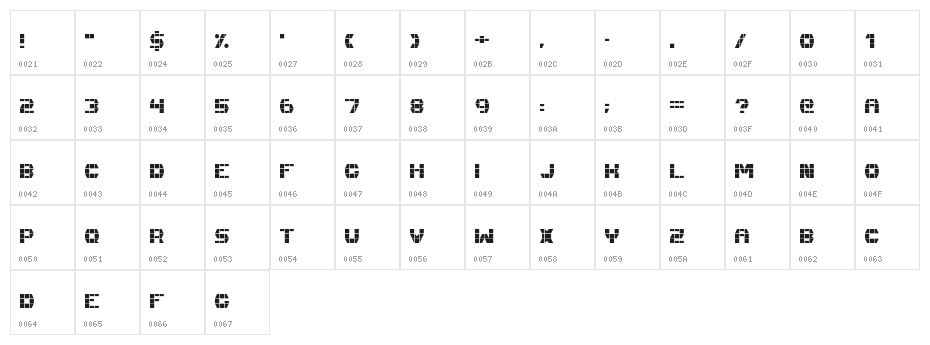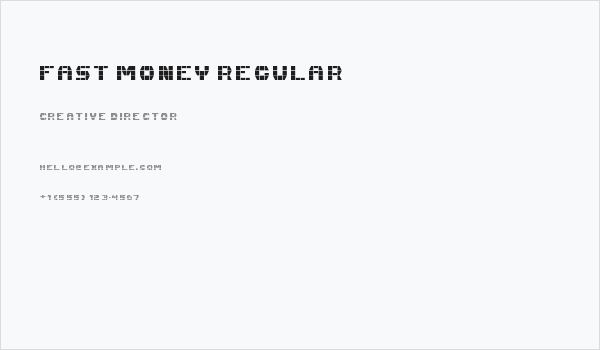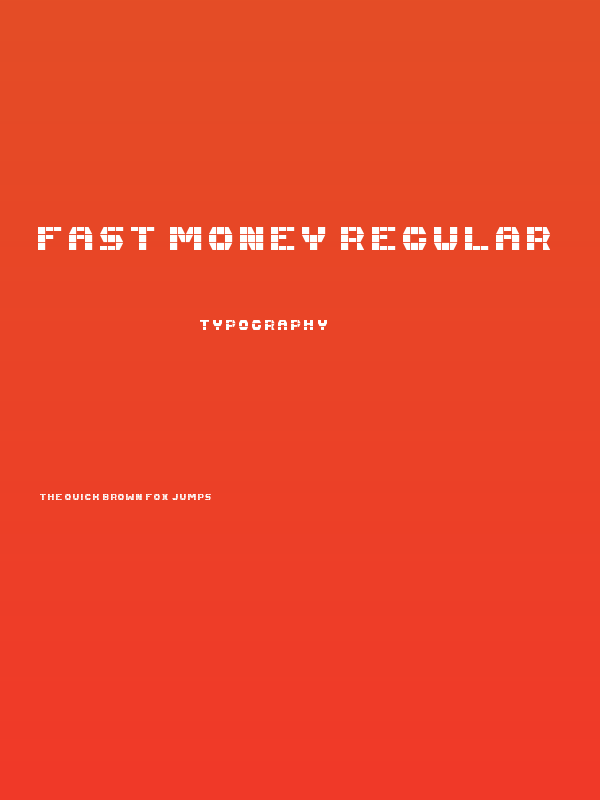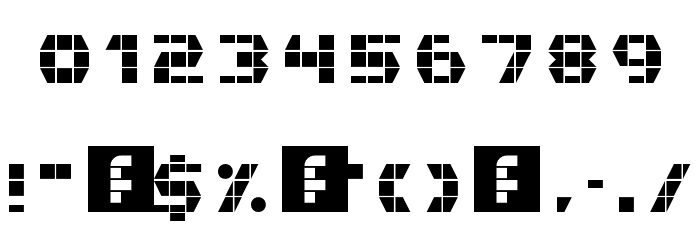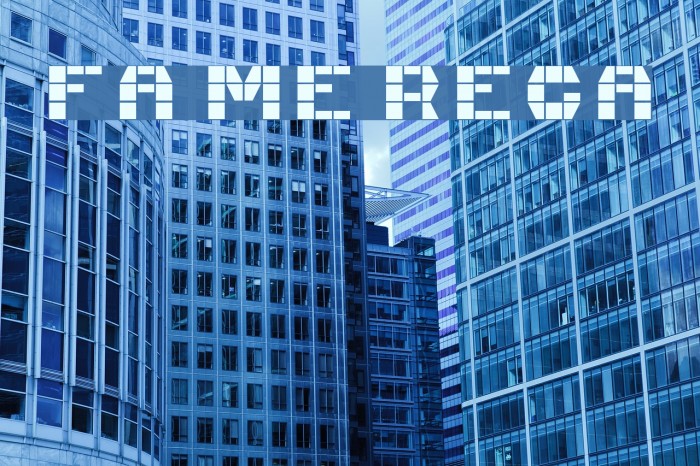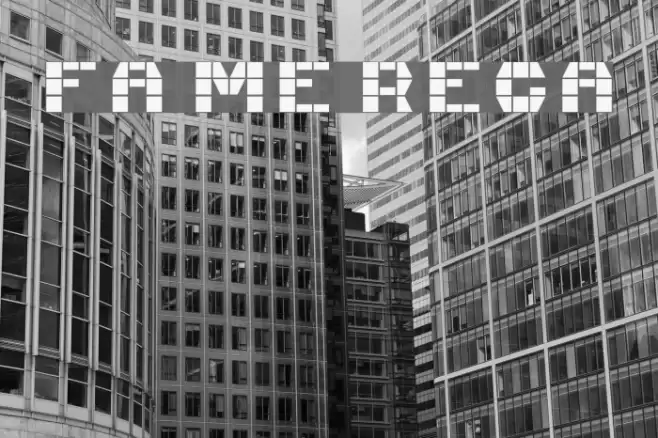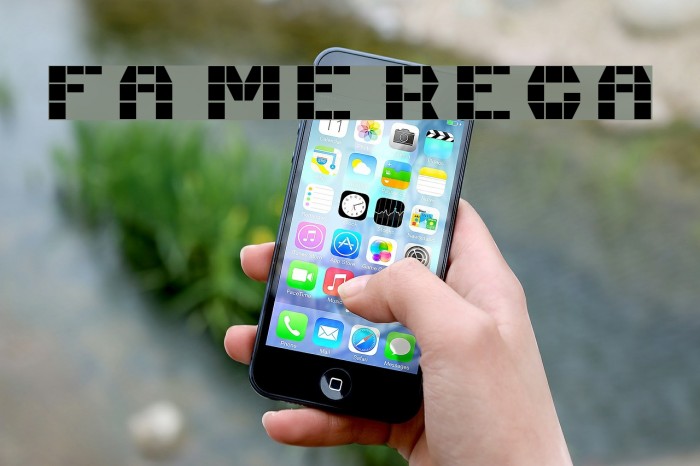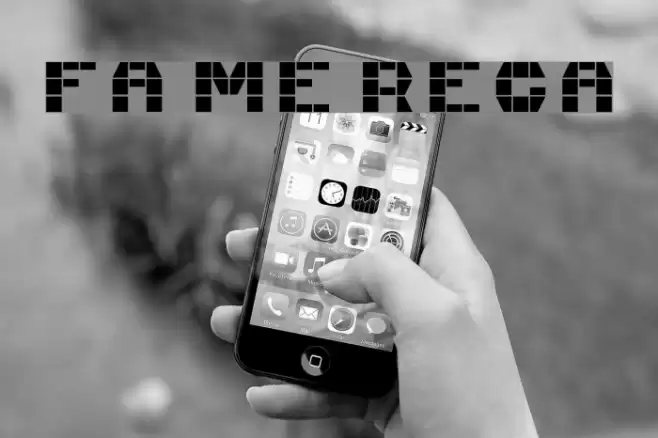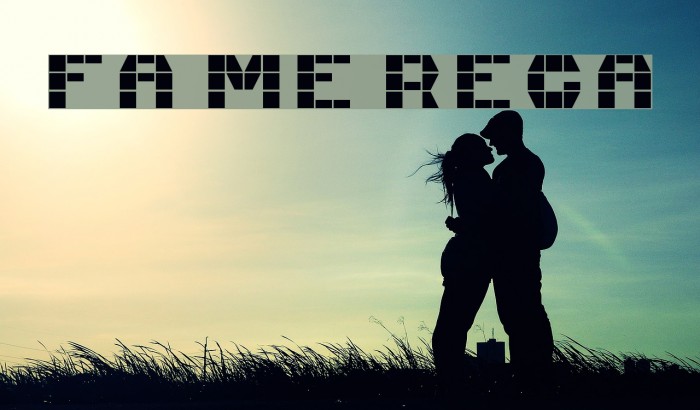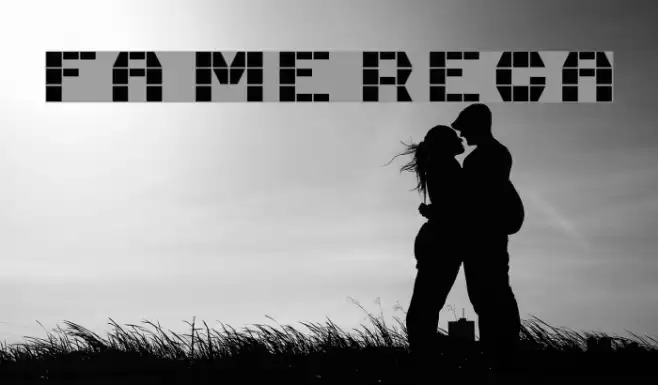
Fast Money Regular Font
Fast Money Regular Description
This font features a bold, geometric design with a digital, futuristic aesthetic. Each character is constructed from a series of block-like segments, creating a pixelated appearance reminiscent of digital displays or LED screens. The uniformity in the structure of each letter and number gives it a cohesive and modern look. The font is highly stylized, making it suitable for projects that require a tech-savvy or contemporary feel. Its distinct style ensures that it stands out, making it ideal for attention-grabbing headlines or branding that seeks to convey innovation and modernity.
| Proposed Projects | Ideal for tech branding, digital interfaces, video game titles, and futuristic-themed posters. |